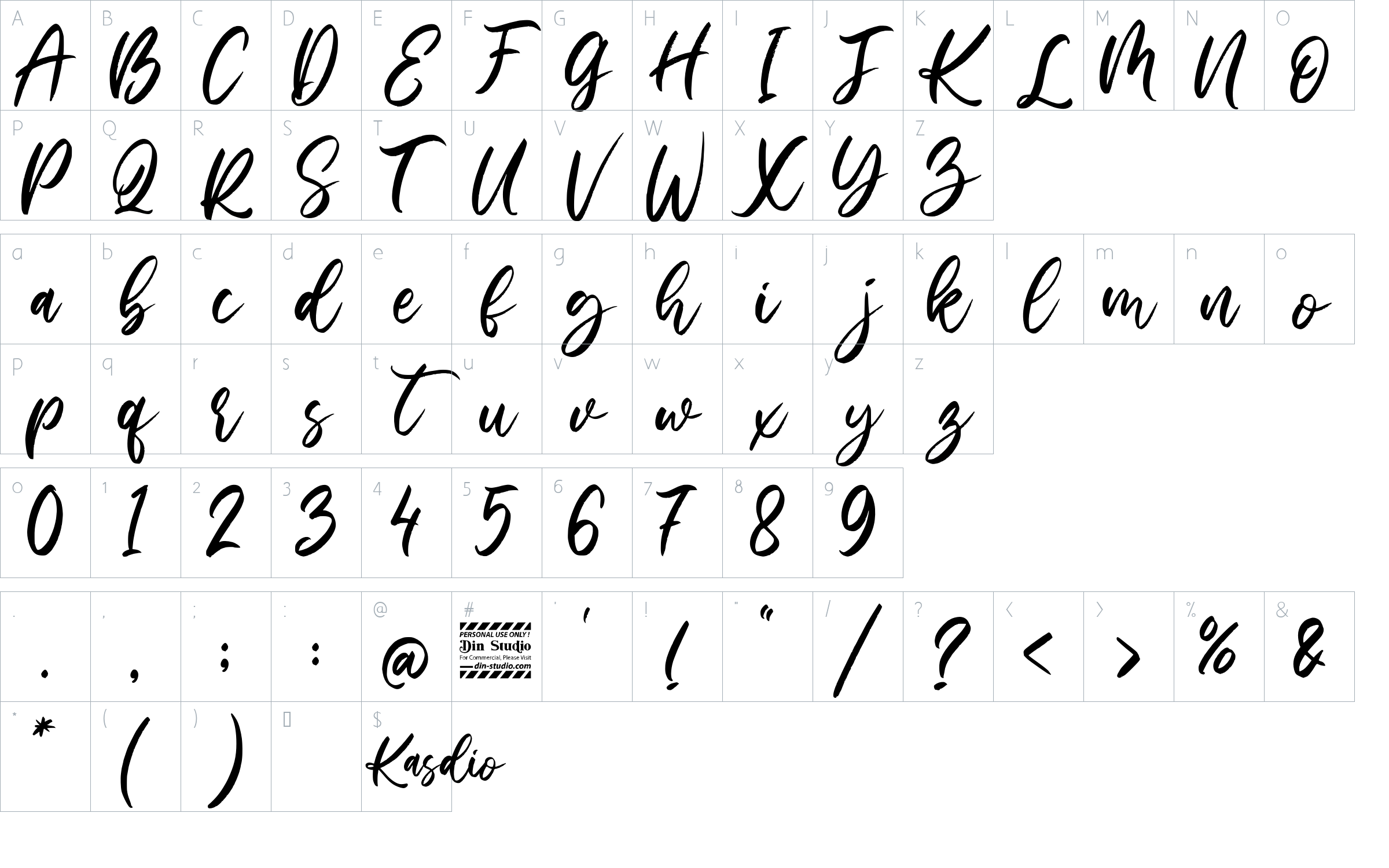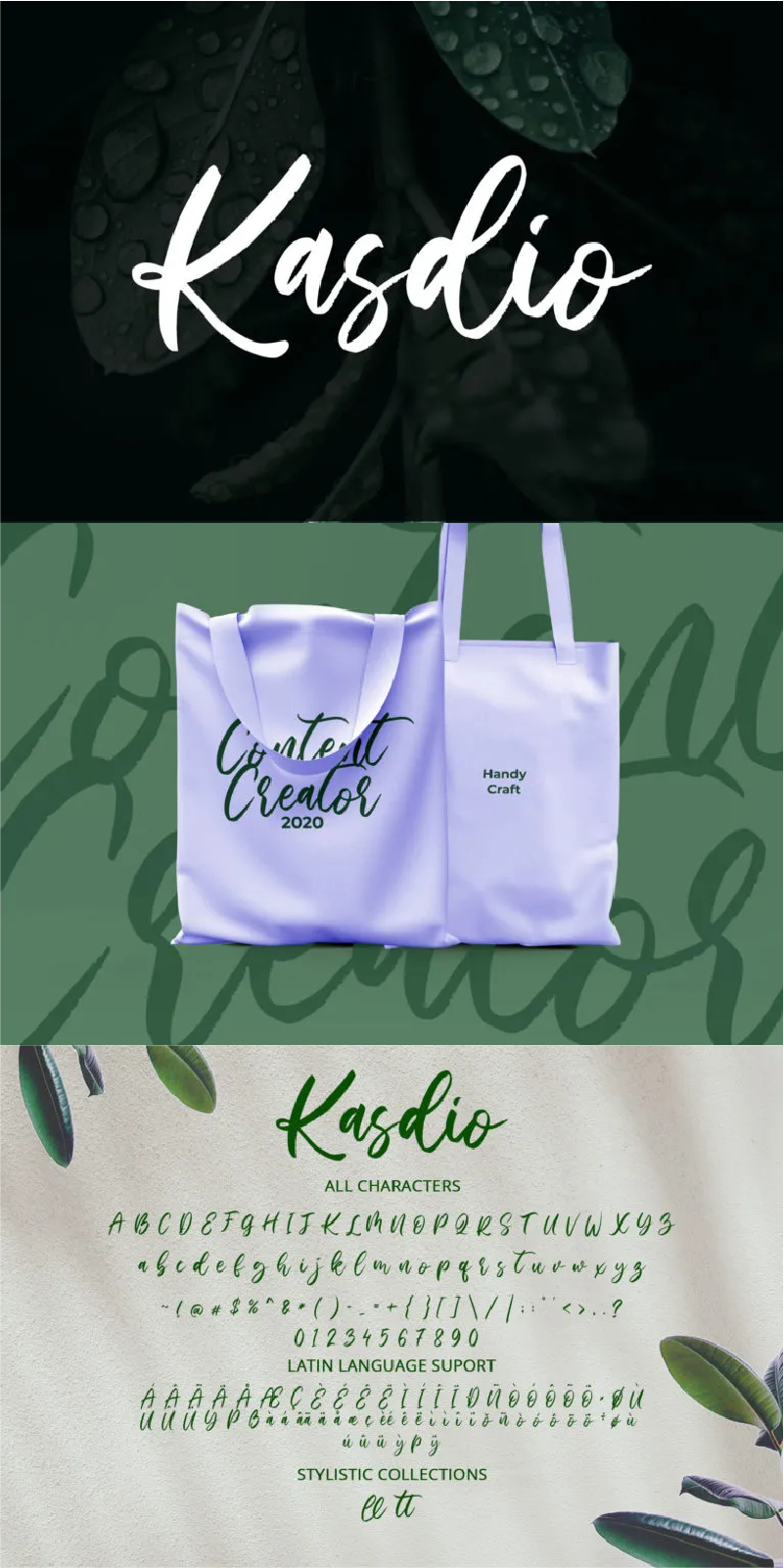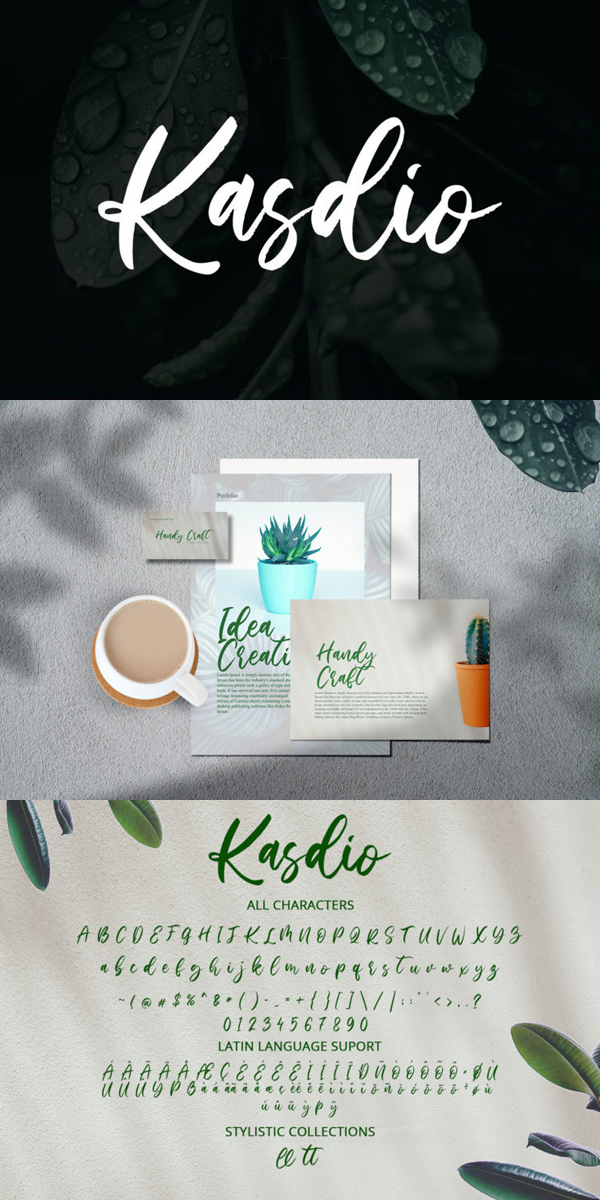
Kasdio Font
About Kasdio
Kasdio is a casual brush font. Made for any professional project branding such as social media campaign, ads, wedding invitation, logotype, cards, and more. Every letter has a unique and beautiful touch. The font includes full set of hand lettered uppercase and lowercase letters, numerals, punctuation, and ligatures. This font giving realistic hand lettered style.
Beautiful Ligatures
PUA Encoded
Multilingual Support
Numerals and Punctuation